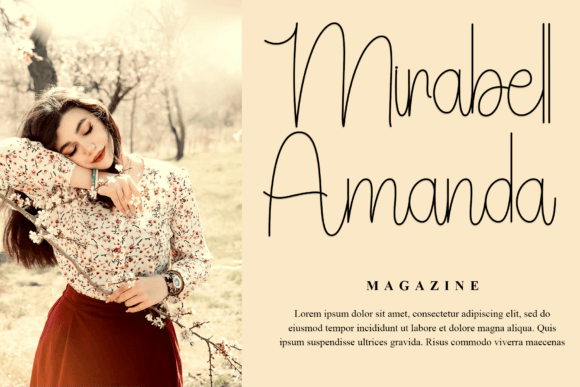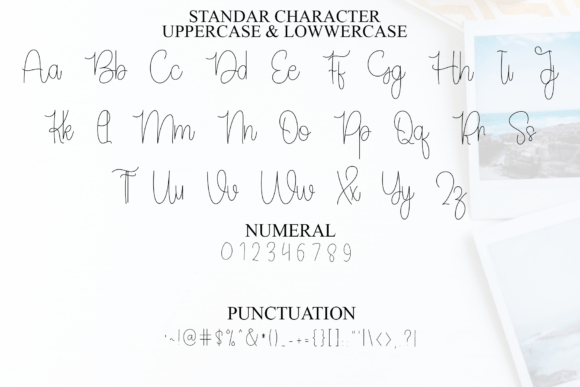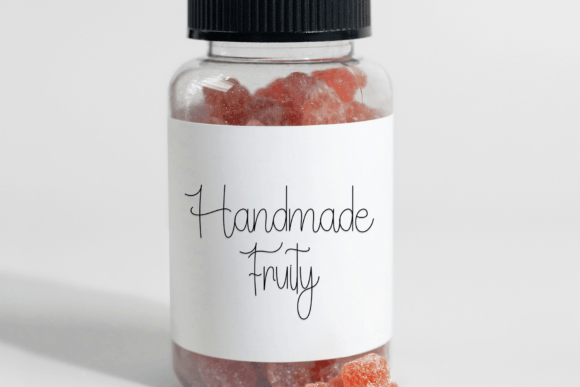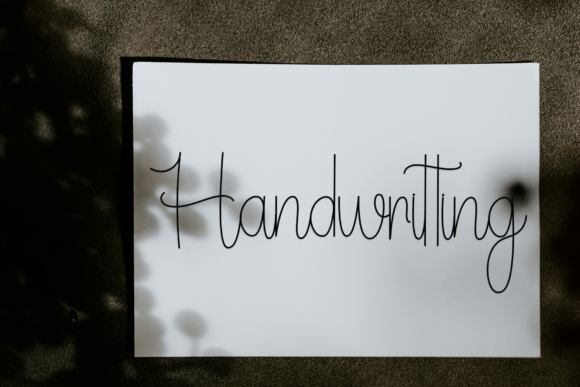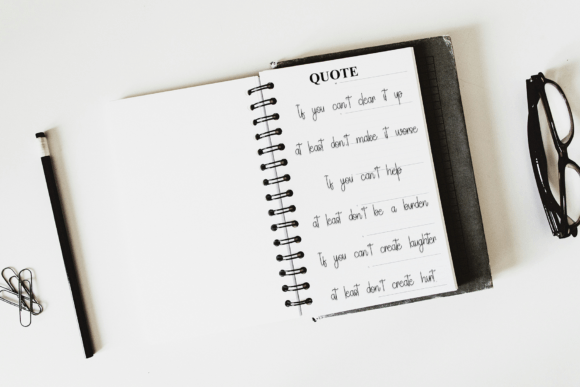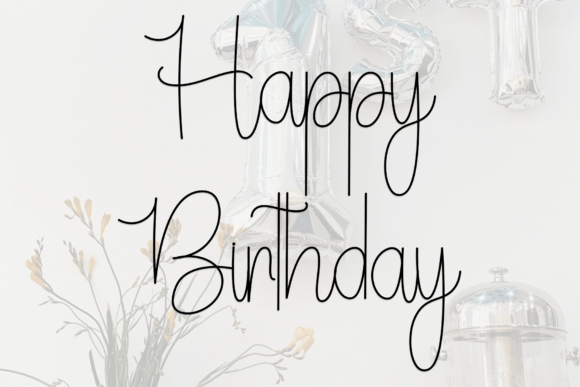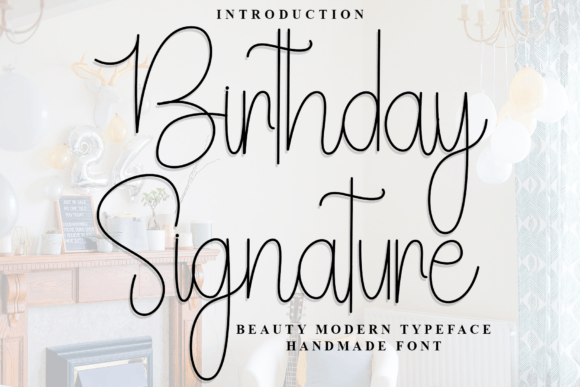
Introducing Birthday Signature Font: Elevate Your Designs with a Touch of Elegance
Are you on the lookout for a font that can add a personal touch to your designs, making them stand out with elegance and sophistication? Look no further than the Birthday Signature Font, a beautiful and attractive typeface that is sure to capture the hearts of designers and crafters alike. This stunning font is crafted with a soft touch, offering a unique and distinctive style that sets it apart from the rest.
What Makes Birthday Signature Font Special?
Birthday Signature Font is not just any ordinary font. It’s a meticulously designed typeface that embodies a sense of warmth and friendliness, making it perfect for a wide range of design projects. From the first stroke, it’s clear that this font has been created with care and attention to detail, ensuring that every character is not only aesthetically pleasing but also rich in meaning and significance.
One of the standout features of Birthday Signature Font is its versatility. With a vast array of characters at your disposal, you’re free to experiment with different designs, whether you’re working on a handmade craft project, creating digital artwork, or developing a brand’s visual identity. The font’s natural style ensures that it can seamlessly integrate into various products, making your work more attractive to a broad audience across different artistic and design disciplines.
Applications of Birthday Signature Font
The possibilities are endless when it comes to using Birthday Signature Font. Its compatibility with various application glyphs, including both Windows and open-source systems, means you can incorporate it into your projects without worrying about technical limitations.
- Handicrafts: Add a personal touch to your handmade crafts, such as cards, invitations, and DIY projects, making each piece unique and special.
- Digital Art: Use the font to create stunning digital artwork, from illustrations and animations to graphic designs and more.
- Branding: Enhance your brand’s visual identity with a font that exudes elegance and sophistication, helping you to stand out in a crowded market.
- Web Design: Incorporate Birthday Signature Font into your website’s design to create a cohesive and inviting user experience.
Why Choose Birthday Signature Font?
In a world where design plays a crucial role in communication and expression, having the right font can make all the difference. Birthday Signature Font offers a unique combination of beauty, versatility, and functionality, making it an excellent choice for designers and crafters looking to elevate their work.
Here are just a few reasons why Birthday Signature Font should be at the top of your list:
- Unique and Distinctive: Stand out from the crowd with a font that is both unique and memorable.
- Elegant and Sophisticated: Add a touch of elegance and sophistication to your designs, making them more appealing to your audience.
- Versatile: Use the font across a wide range of projects, from digital designs to handmade crafts.
- Easy to Use: With its compatibility across different systems and applications, incorporating Birthday Signature Font into your workflow is seamless.
Birthday Signature Font is more than just a typeface; it’s a tool that can transform your designs, adding a layer of elegance and sophistication that resonates with audiences. Whether you’re a professional designer, a crafter, or simply someone who appreciates the beauty of well-crafted typography, this font is sure to inspire and enhance your creative projects.